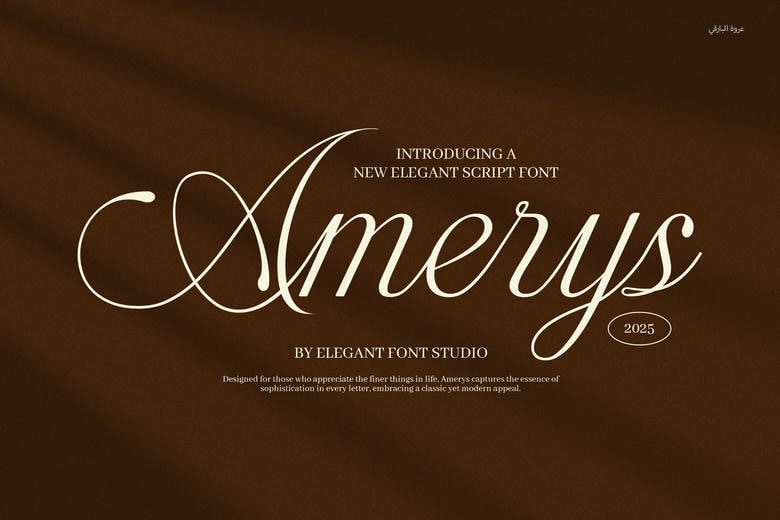
Amerys Font
Amerys is a good quality font of script combined with both beauty and modernity. On the surface, it presents all sophisticated lines, elegant lines, and flowing lines that are luxurious and intimate. Besides, the subtle interplay of thick and thin lines contributes to an advanced rhythm, as each word seems a well-thought-out, instead of mechanical-drawn, one.
With long, sweeping flourishes and fine-line strokes, the Amerys typeface has an old-fashioned beauty to it that would suit luxury invitations, cosmetic branding, and editorial of high quality.
The Amerys font is made to appeal to the style of people who would want to add some touch of elegance to all their letters; in doing so, one would turn ordinary writing into a handsome work of art. Combine this Amerys typeface with some minimalist serif to get a balanced high-fashion style that communicates to quality and low profile beauty.
The high long swashes and the smooth letterforms of the Amerys make it have a strong visual presence. Meanwhile, it is still legible, which is a necessity of professional design work. This graceful script font provides a classic feel whether in huge headlines or fashionable signatures. Moreover, the spacing is well balanced therefore making the compositions appear completed and tranquil.
Amerys Script Font